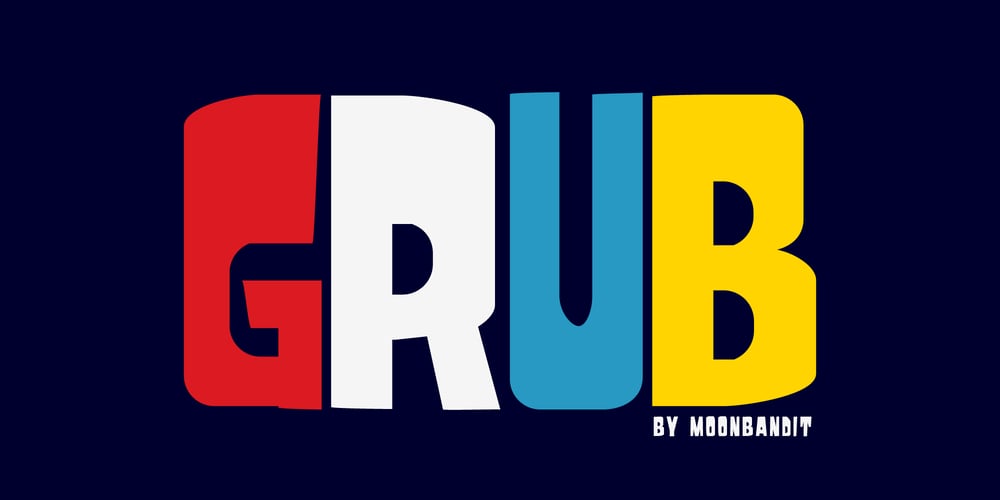
Mbf Grub
Mbf Grub font
Mbf Grub Font Family was designed by Bramaji Dipa Manggala and published by Moonbandit. Mbf Grub contains 1 styles and family package options. Grub is a bold, playful and fun typeface, it is ideal for branding, logo, title, headlines, poster and many other projects that needs an attention grabber. Use it on your projects to give that free spirit and bold look.Also include opentype features: ligature and alternate